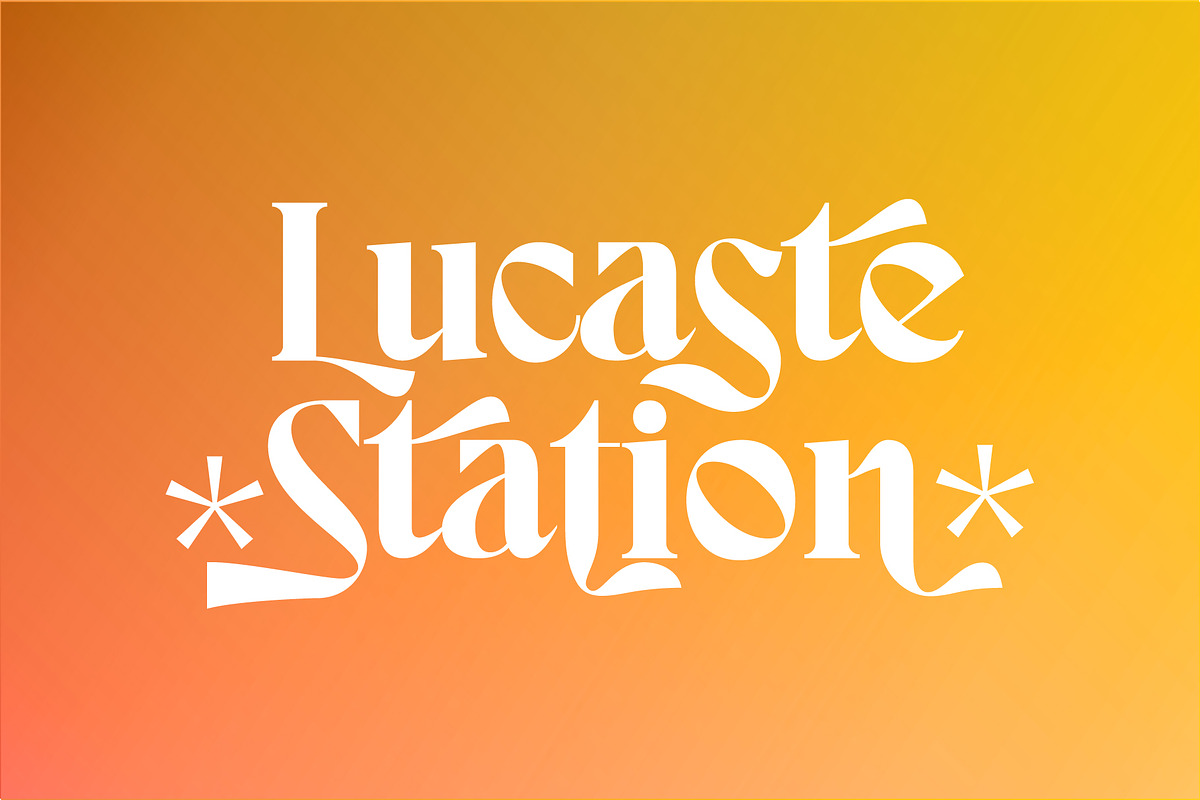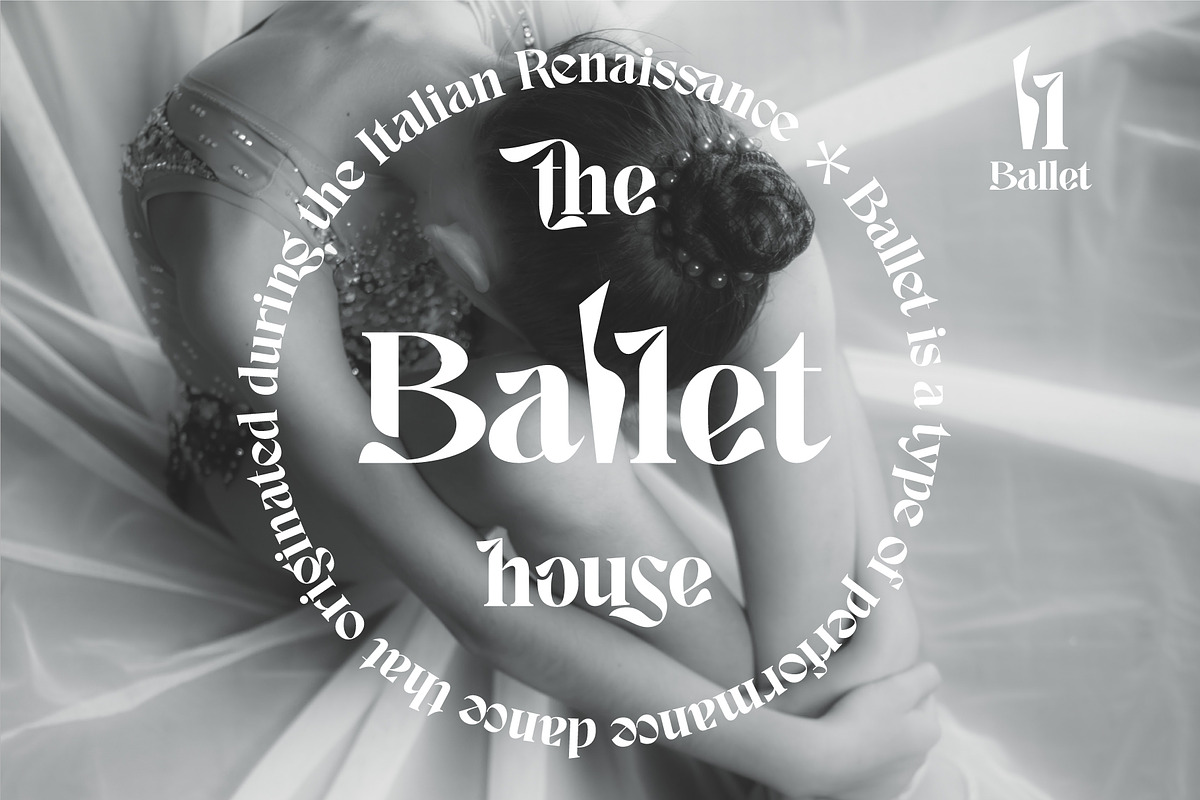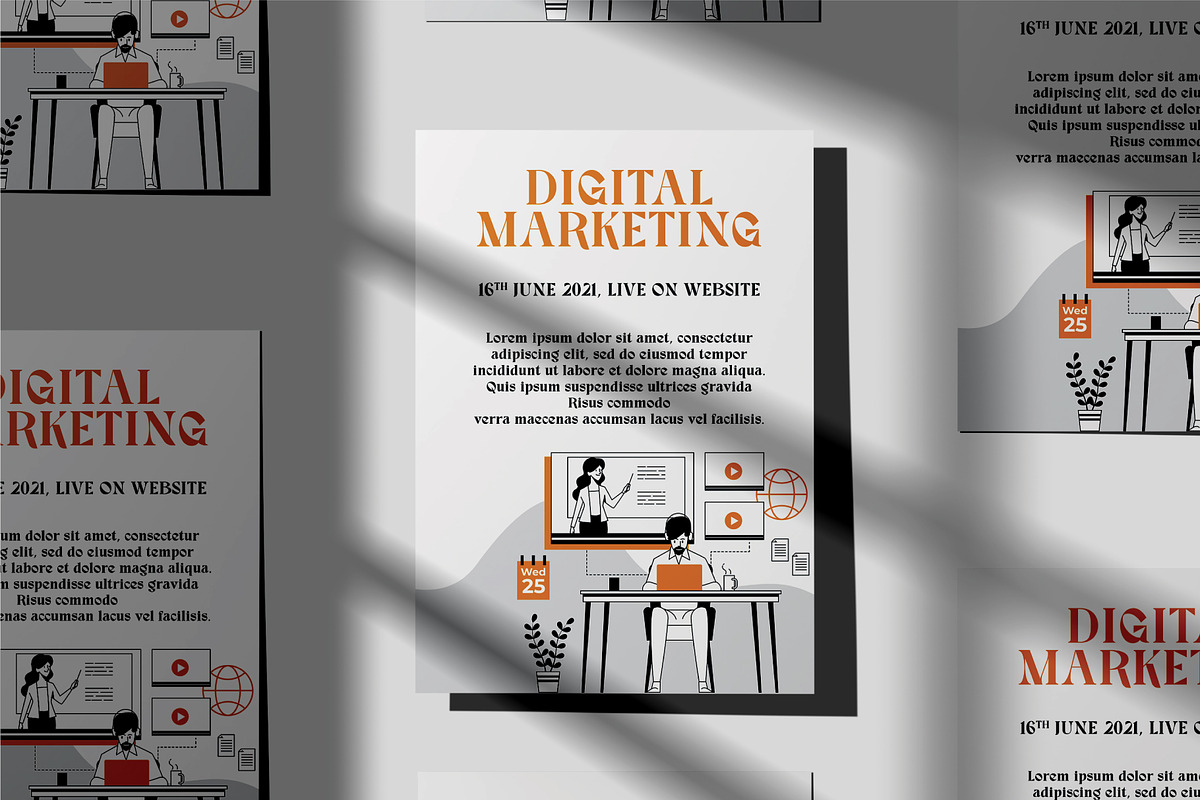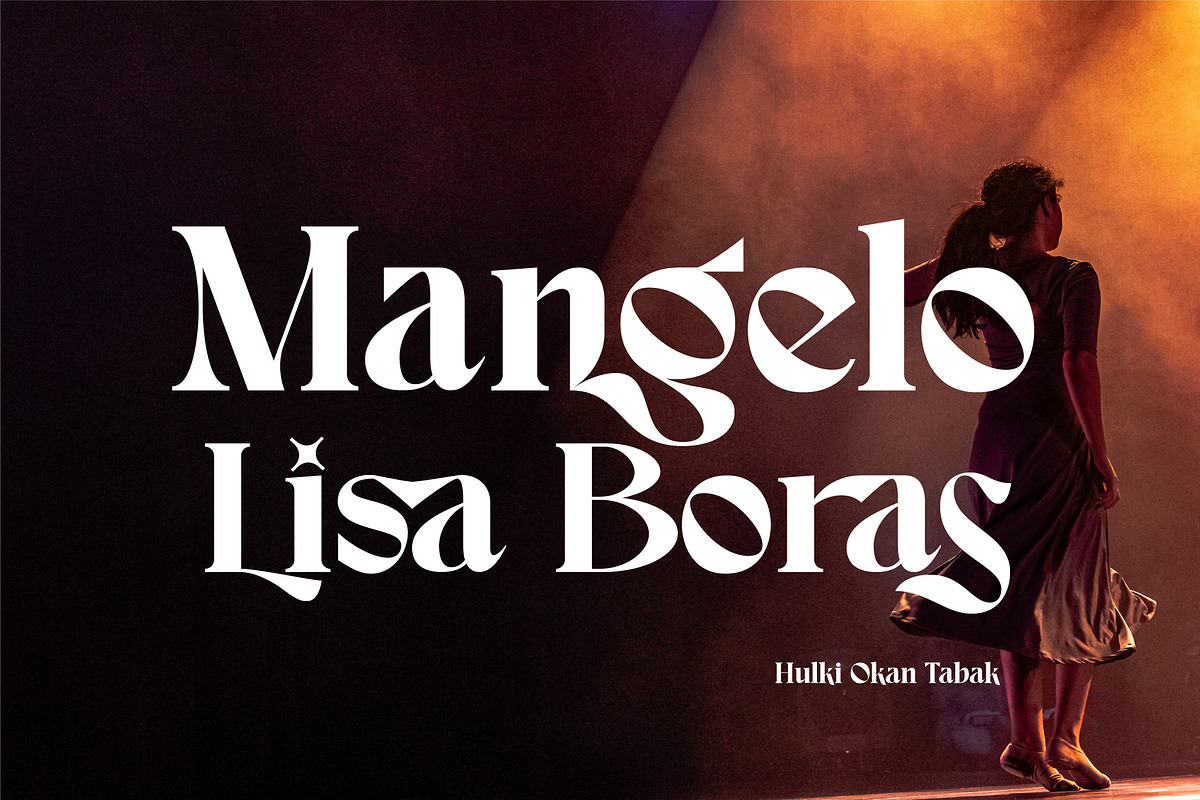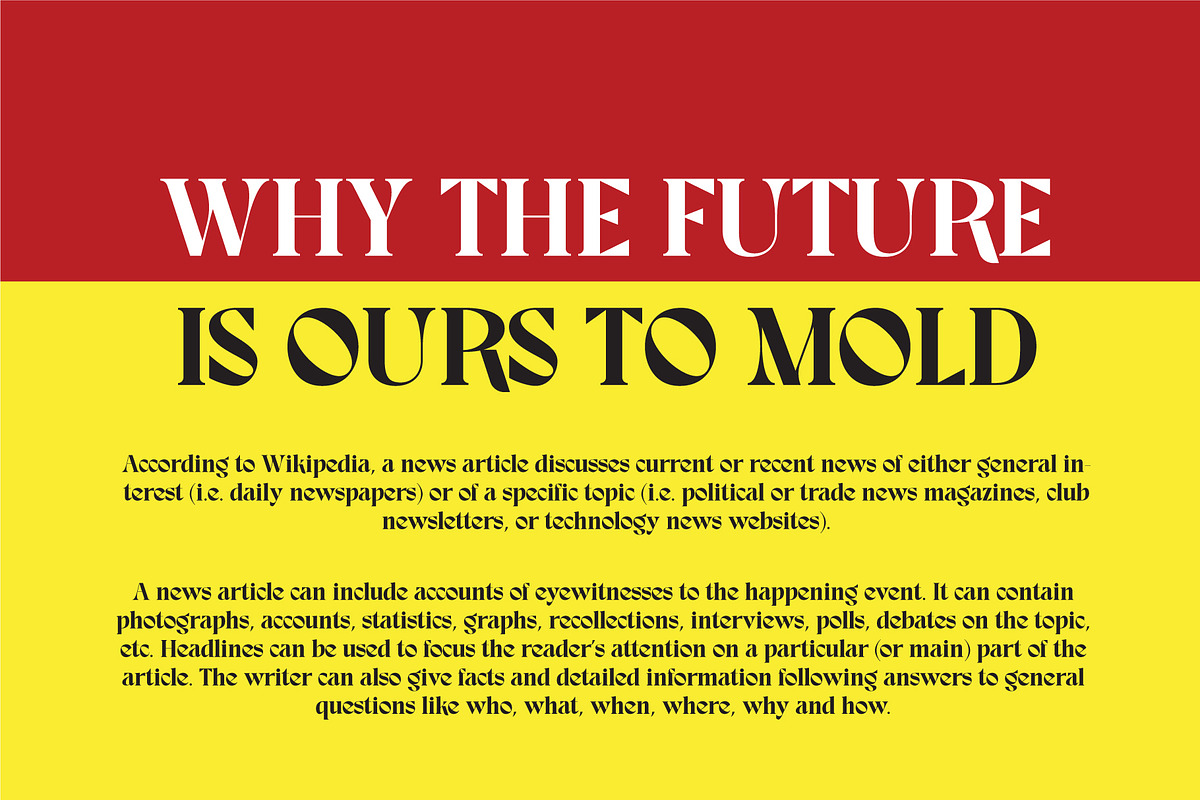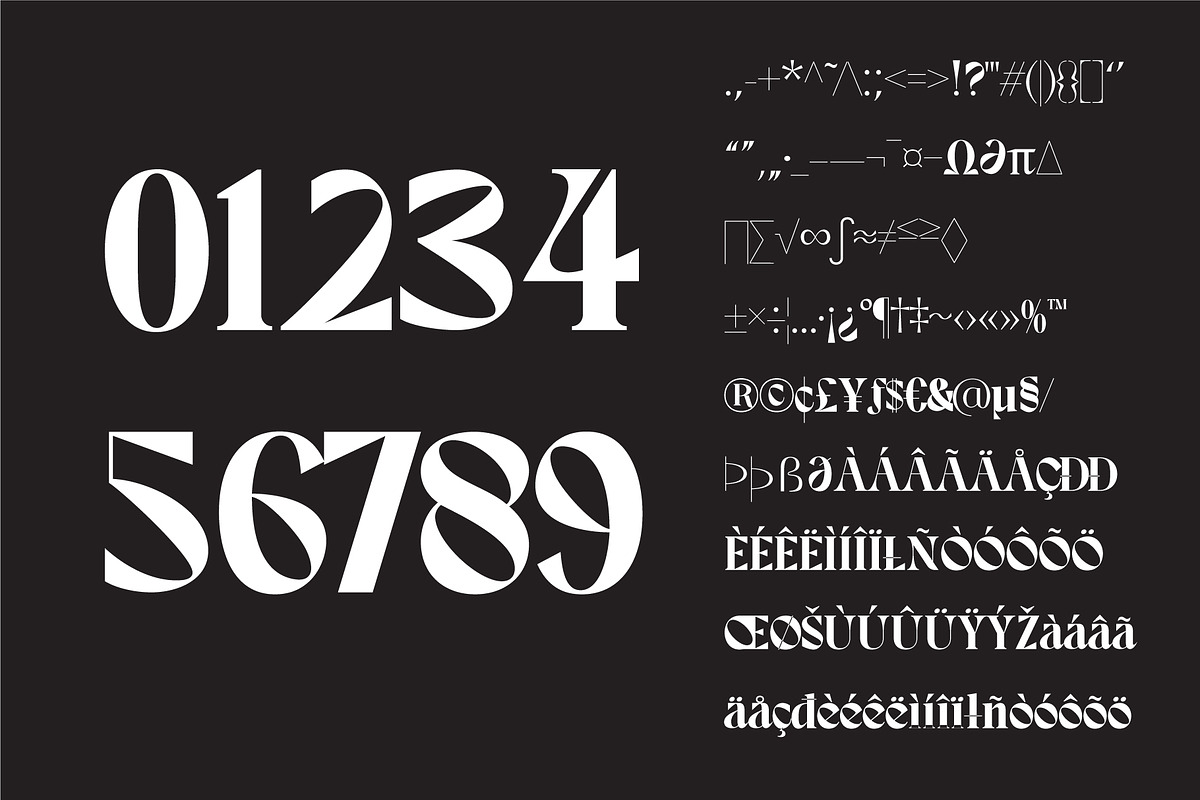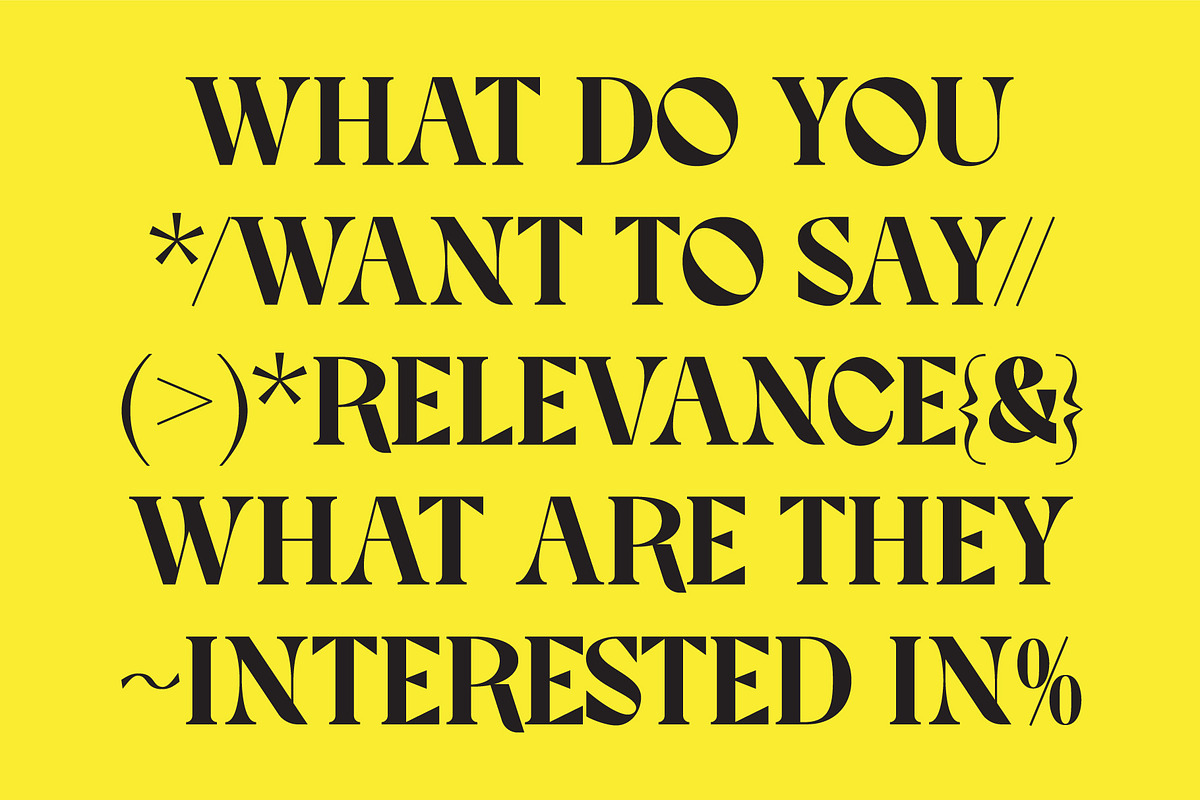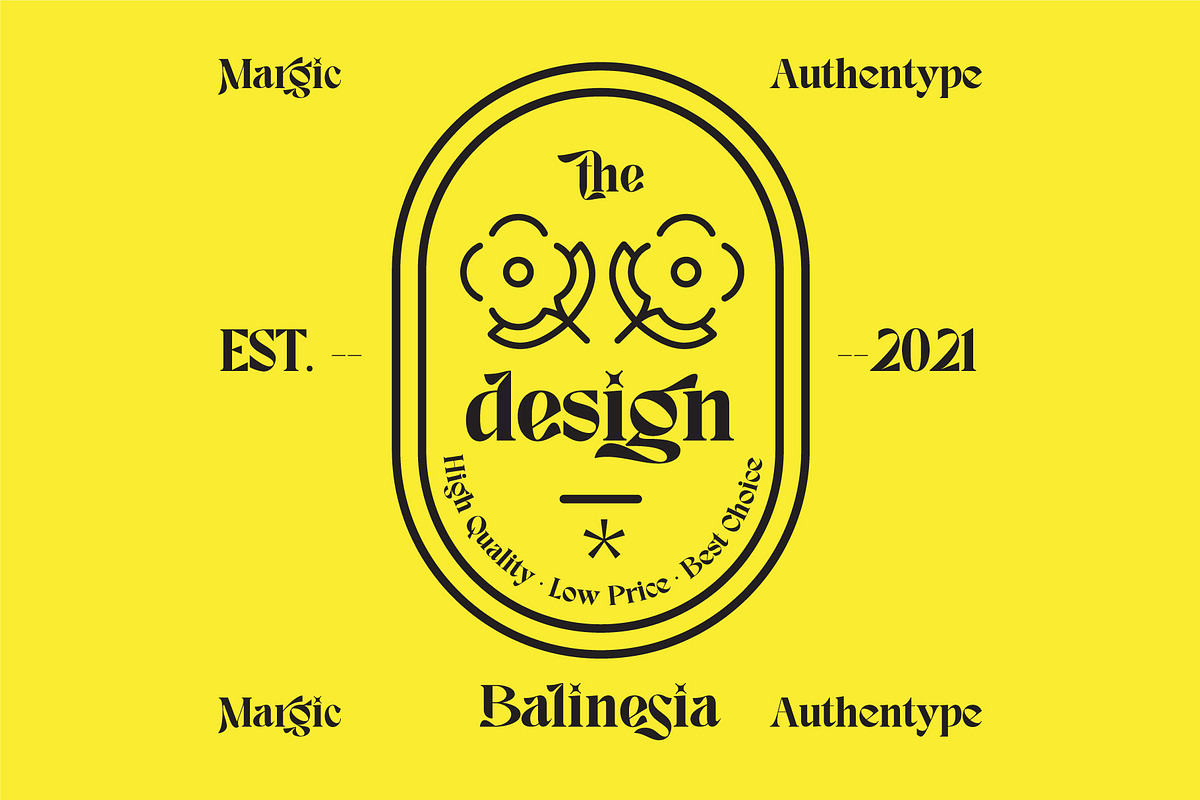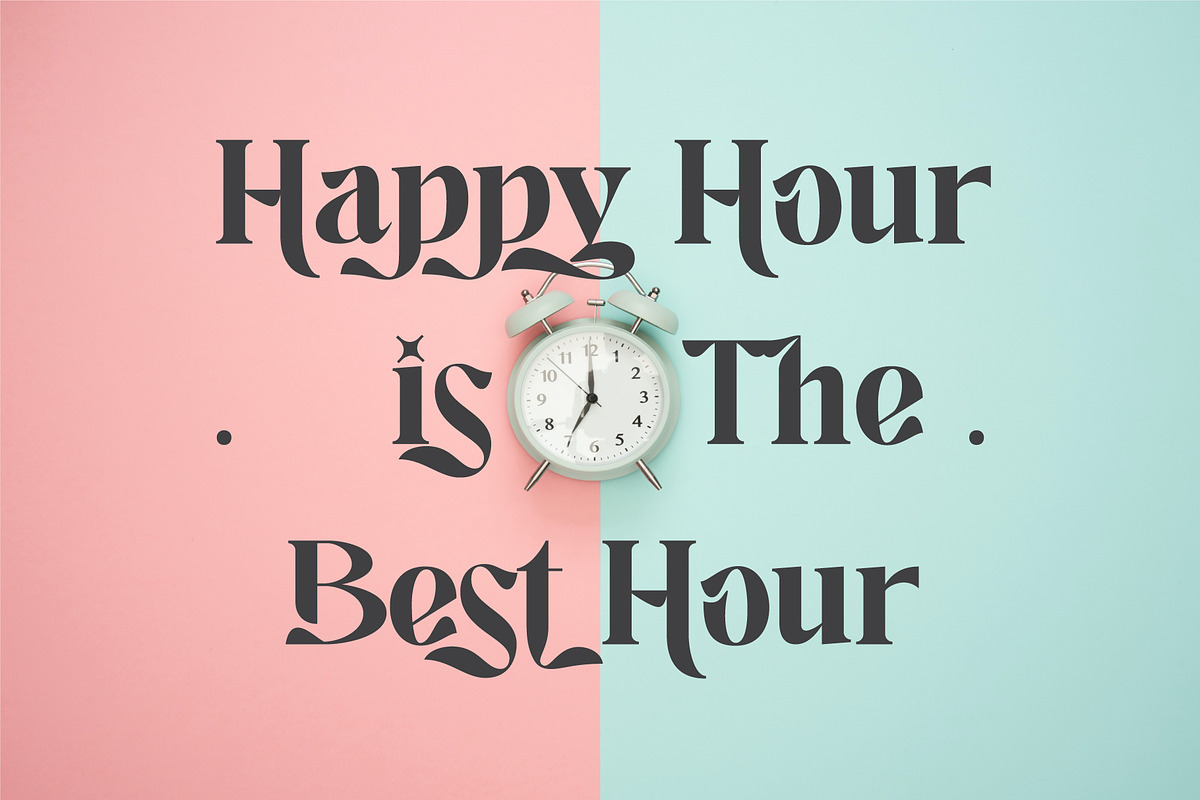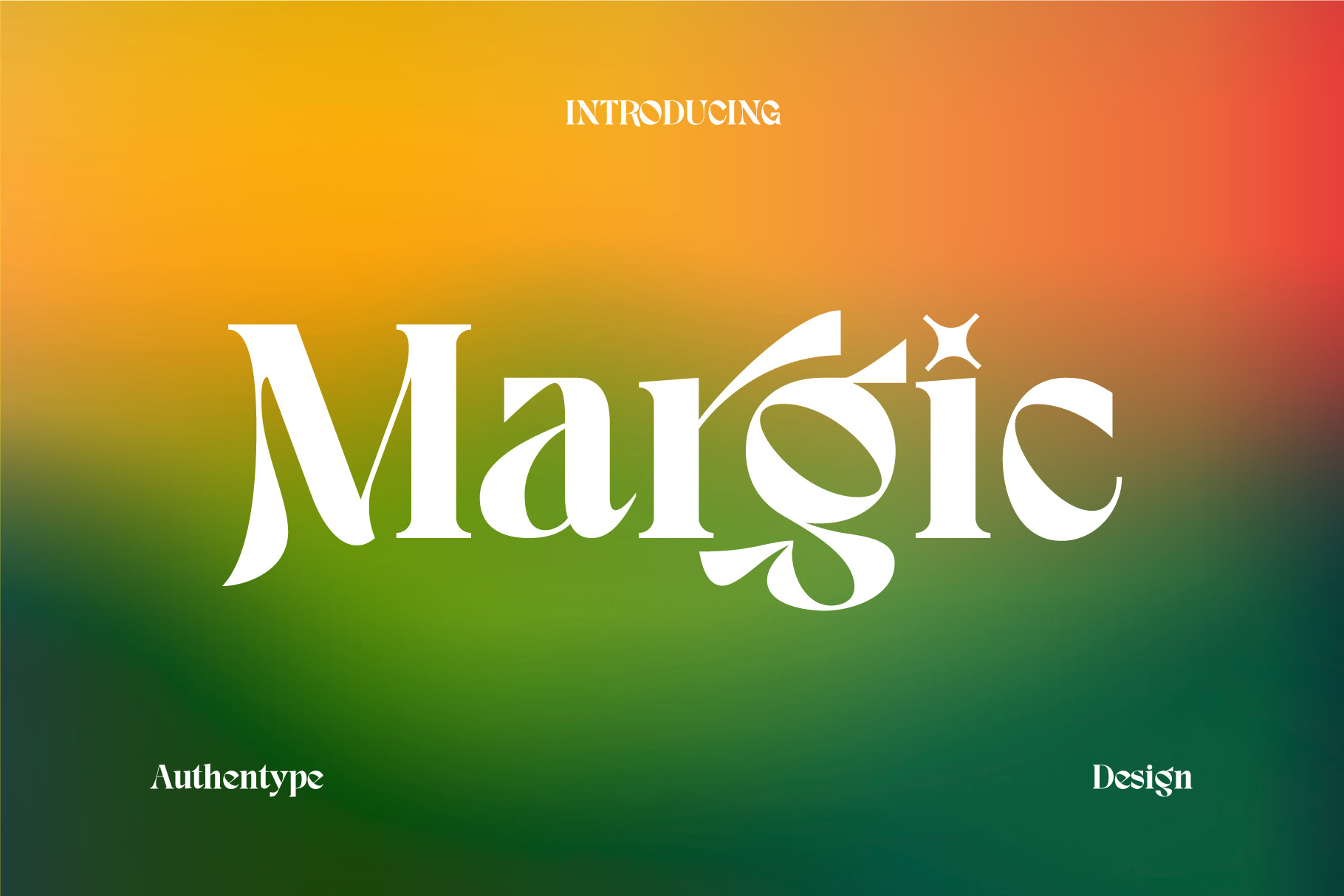
Margic - Magic of Typeface
Margic - Magic of typeface with 2 types of characters. There are two types of letters by activating stylistic alternates you will get a very contrasting feel than regular letters. It was also followed by the addition of swash, many ligatures, and many languages.
- Standard glyphs uppercase and lowercase letters
- Numerals, a large range of punctuation and ligatures.
- Swashes,
- Stylistic Set
- Fonts include multilingual support for; ä ö ü Ä Ö Ü ß ¿¡